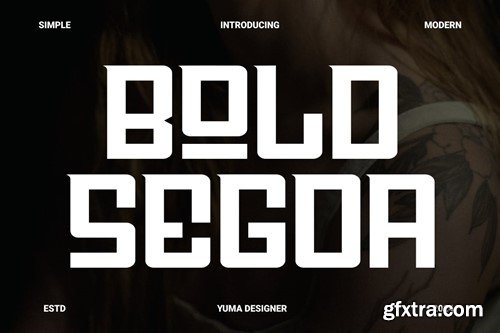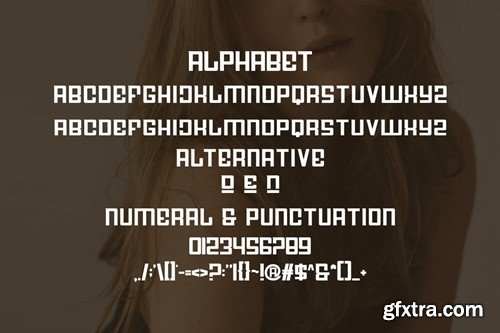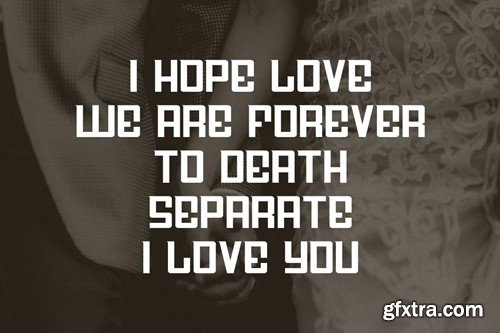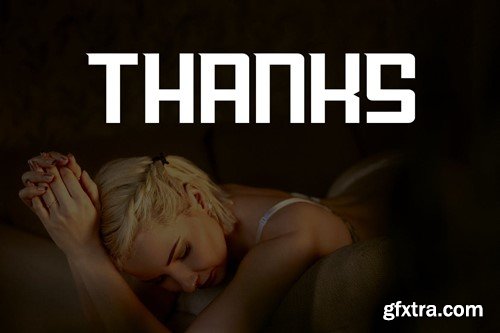
Bold Segoa Font
Introducing Bold Segoa Modern Sans Serif Font. Bold Segoa is a modern and simple font, best used as a display for headings, logos, branding, magazines, product packaging and invitations. Bold Segoa come with clean lines and smooth curves give any project an extra touch of class. What you get: Thank you.